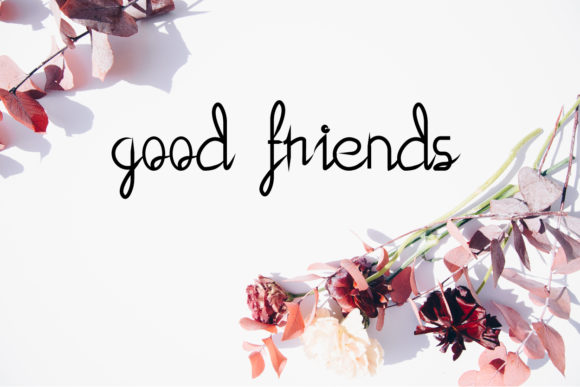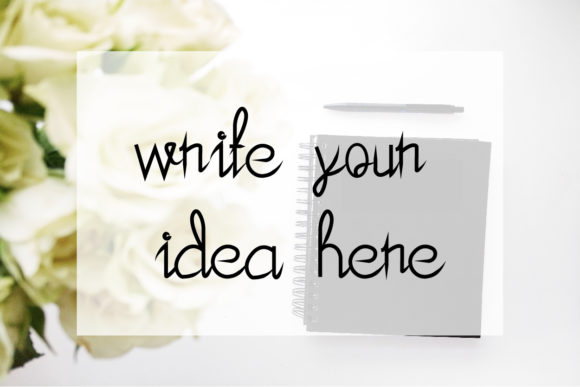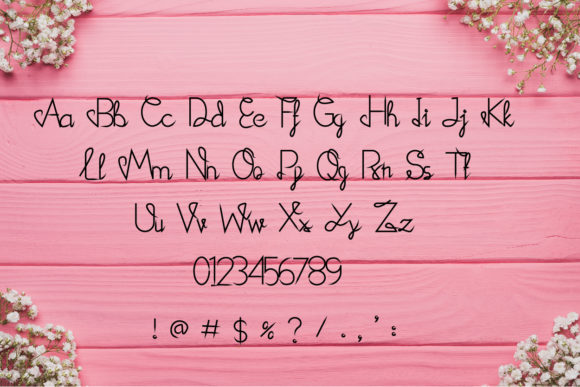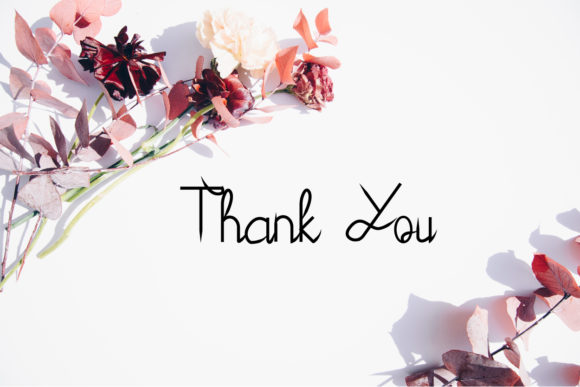
Hanasakanasira Font: Elevate Your Designs with Luxurious Handwritten Elegance
Hanasakanasira is an incredibly luxurious and unique handwritten font that has been making waves in the design community. Delicate and sweet, this font is perfect for designers and crafters looking to add a touch of elegance to their projects. In this article, we’ll dive into the world of Hanasakanasira Font, exploring its features, benefits, and uses.
The Story Behind Hanasakanasira Font
Hanasakanasira Font is a carefully crafted handwritten font that exudes luxury and sophistication. Its unique and delicate design makes it perfect for a wide range of projects, from wedding invitations and branding materials to digital graphics and crafts. The font’s creator aimed to design a typeface that would evoke a sense of refinement and poise, and they have certainly succeeded.
Key Features of Hanasakanasira Font
- Unique and Handwritten Design: Hanasakanasira Font boasts a one-of-a-kind handwritten design that sets it apart from other fonts.
- Delicate and Sweet: The font’s delicate and sweet aesthetic makes it perfect for projects that require a touch of elegance.
- Luxurious and Sophisticated: Hanasakanasira Font’s luxurious and sophisticated design makes it ideal for high-end branding and design projects.
- Versatile: This font can be used for a wide range of projects, from digital graphics to print materials.
Benefits of Using Hanasakanasira Font
So, why should designers and crafters choose Hanasakanasira Font for their projects? Here are just a few benefits:
- Adds Elegance and Sophistication: Hanasakanasira Font can instantly elevate your designs, adding a touch of luxury and refinement.
- Stand Out from the Crowd: With its unique and handwritten design, Hanasakanasira Font can help your projects stand out in a crowded design landscape.
- Easy to Read and Understand: Despite its delicate design, Hanasakanasira Font is easy to read and understand, making it perfect for body text and headings.
- Customizable: This font can be easily customized to fit your project’s specific needs, from adjusting the size and color to adding effects and textures.
Uses of Hanasakanasira Font
Hanasakanasira Font is incredibly versatile and can be used for a wide range of projects, including:
- Wedding Invitations and Stationery: Add a touch of elegance and sophistication to your wedding invitations, save-the-dates, and stationery.
- Branding and Packaging: Use Hanasakanasira Font to create luxurious and eye-catching branding materials, such as logos, business cards, and product packaging.
- Digital Graphics: This font is perfect for digital graphics, such as social media graphics, blog headers, and email newsletters.
- Crafts and DIY Projects: Hanasakanasira Font can add a touch of elegance to your craft projects, such as handmade cards, scrapbooking, and paper crafting.
Tips for Using Hanasakanasira Font
To get the most out of Hanasakanasira Font, here are a few tips:
- Use it Sparingly: Use Hanasakanasira Font sparingly to add emphasis and create visual interest.
- Pair it with Other Fonts: Pair Hanasakanasira Font with other fonts to create a unique and visually appealing typography.
- Adjust the Size and Color: Experiment with different sizes and colors to find the perfect combination for your project.
In conclusion, Hanasakanasira Font is an incredibly luxurious and unique handwritten font that can elevate your designs and add a touch of elegance and sophistication. With its delicate and sweet design, versatility, and ease of use, this font is perfect for designers and crafters looking to create stunning projects. Whether you’re working on a wedding invitation, branding materials, or digital graphics, Hanasakanasira Font is sure to impress.